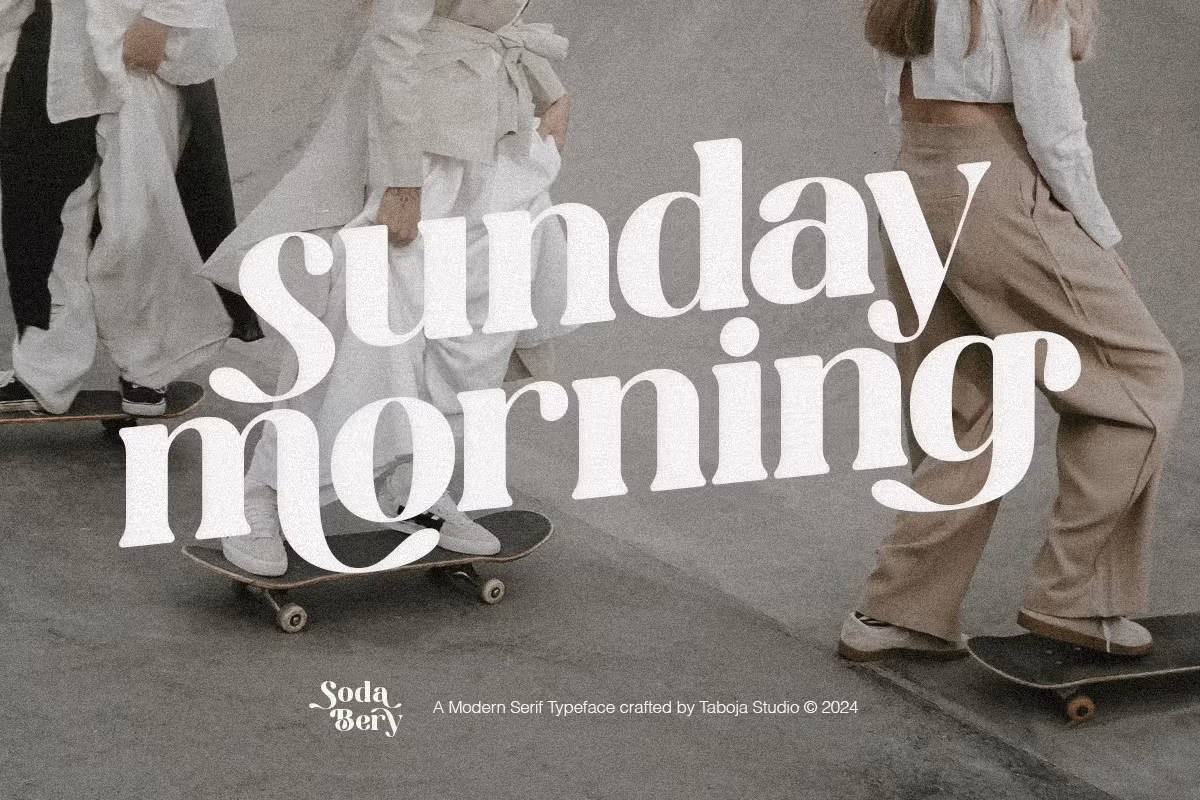
Sodabery | Serif Font Free Download
Sodabery Serif Font Free Download
Sodabery Serif Font Free Download is a sweet and stylish serif typeface with a soft, contemporary twist. Featuring elegant curves, subtle contrast, and charming character details, Sodabery is ideal for branding, wedding invitations, social media graphics, packaging, and editorial layouts that call for a blend of modern femininity and classic sophistication.
With its delicate serifs and friendly appearance, Sodabery Serif Font Free Download adds a touch of personality to both headlines and body text. It includes stylistic alternates and ligatures to help you create beautifully tailored typography with ease.